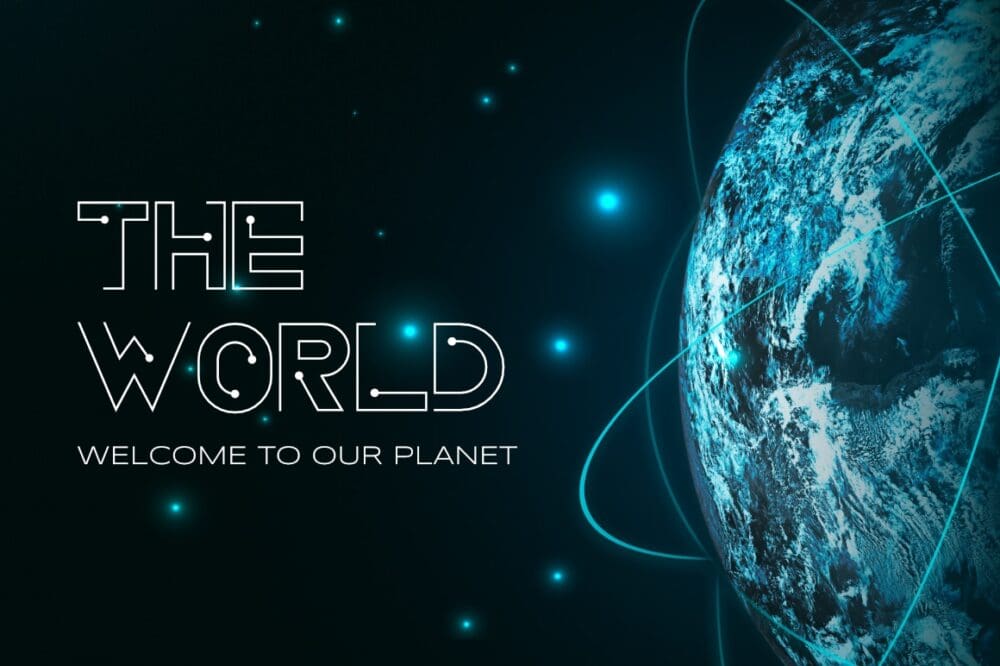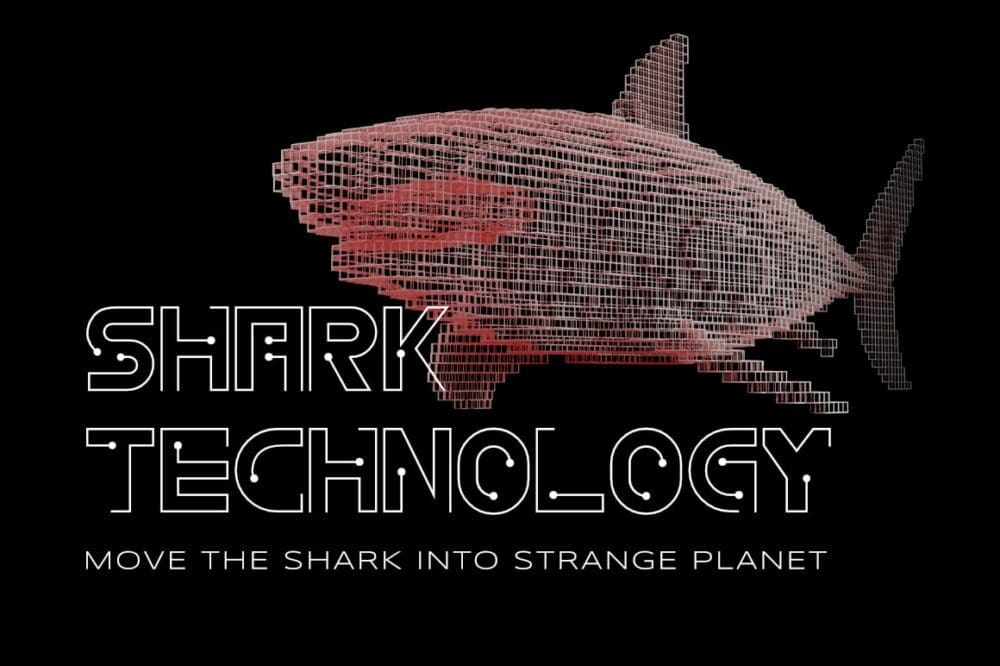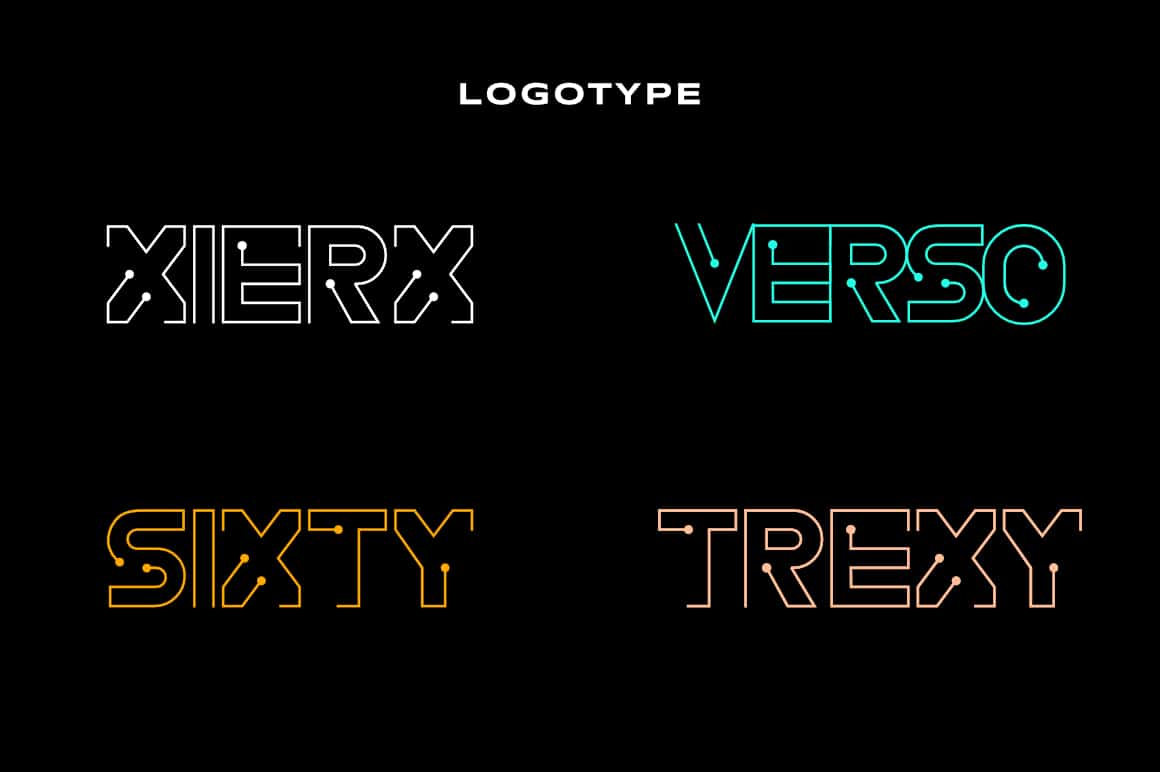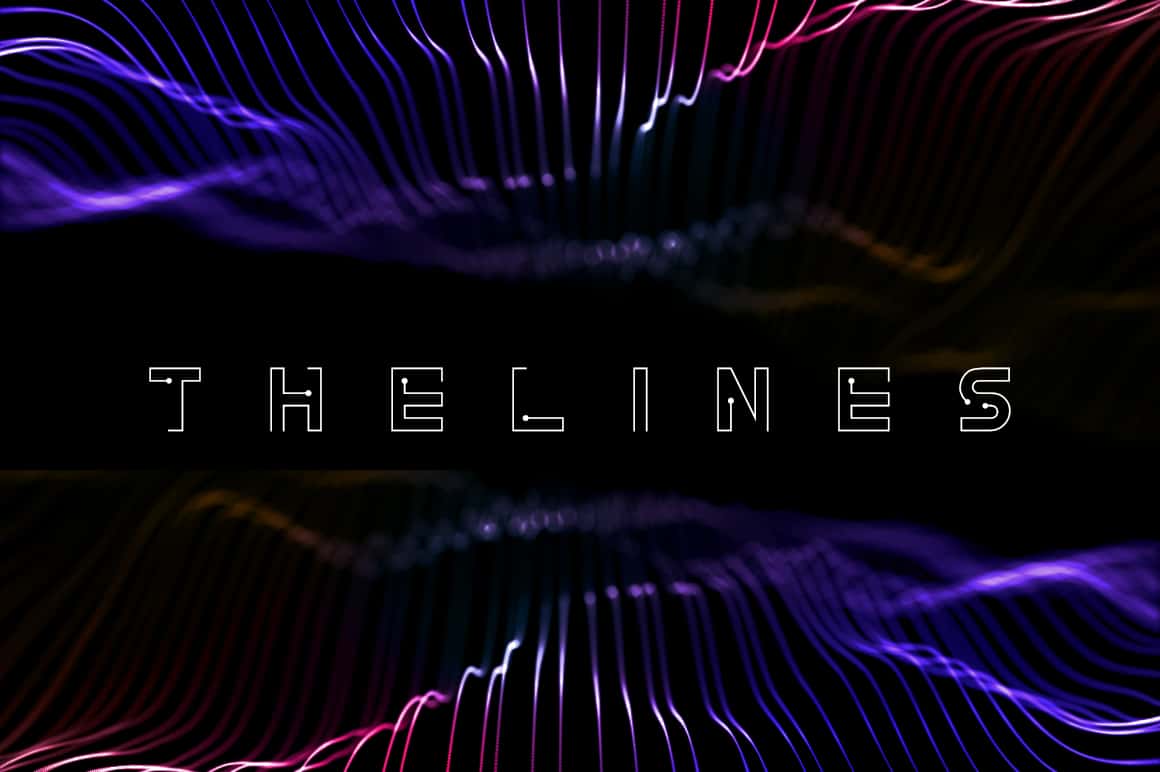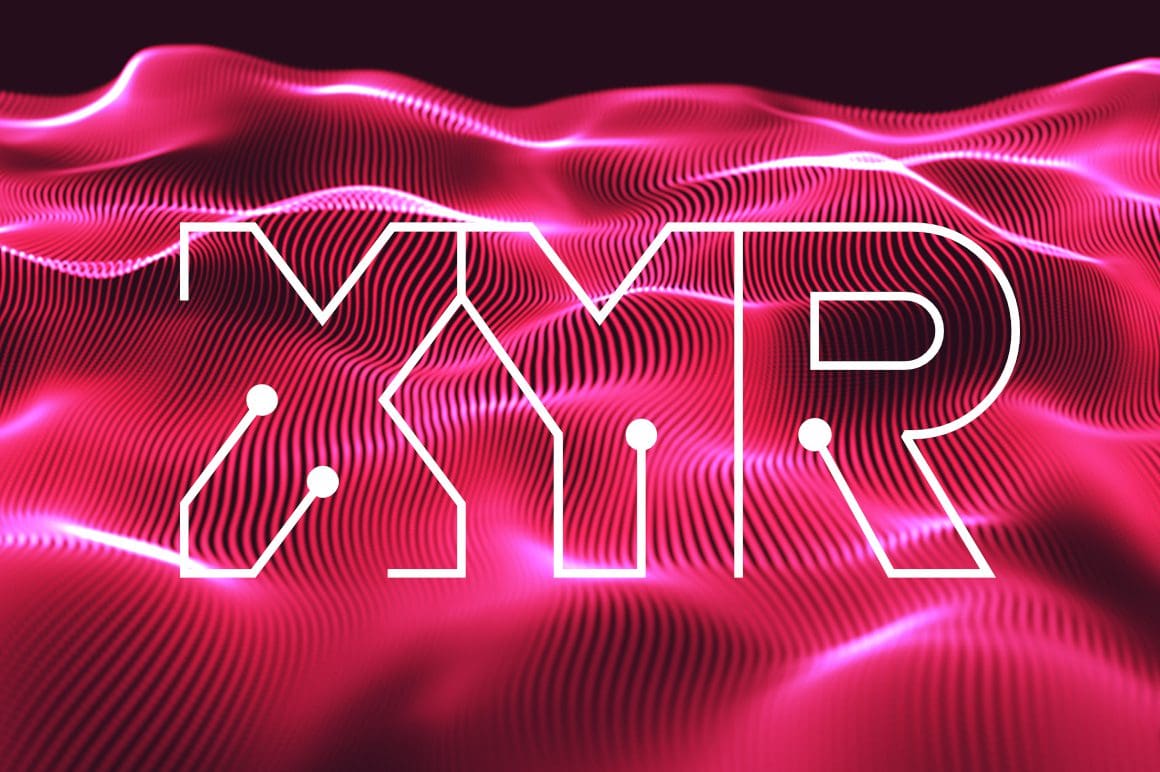
Exwayer Font
Exwayer is a cool and techno-looking Display Font. It is ideal for writing web designs, business cards, or pretty much anything else that requires a unique touch.